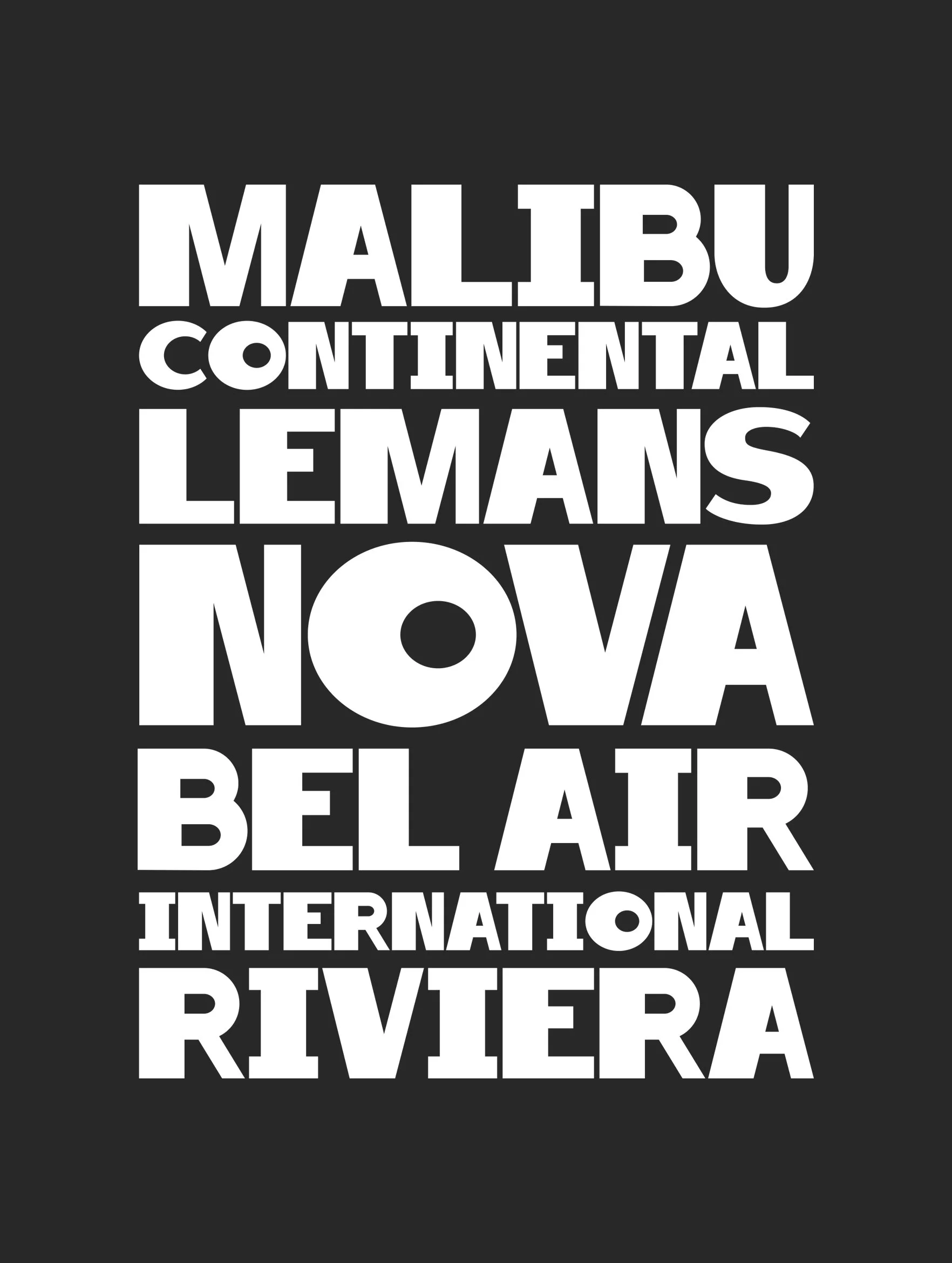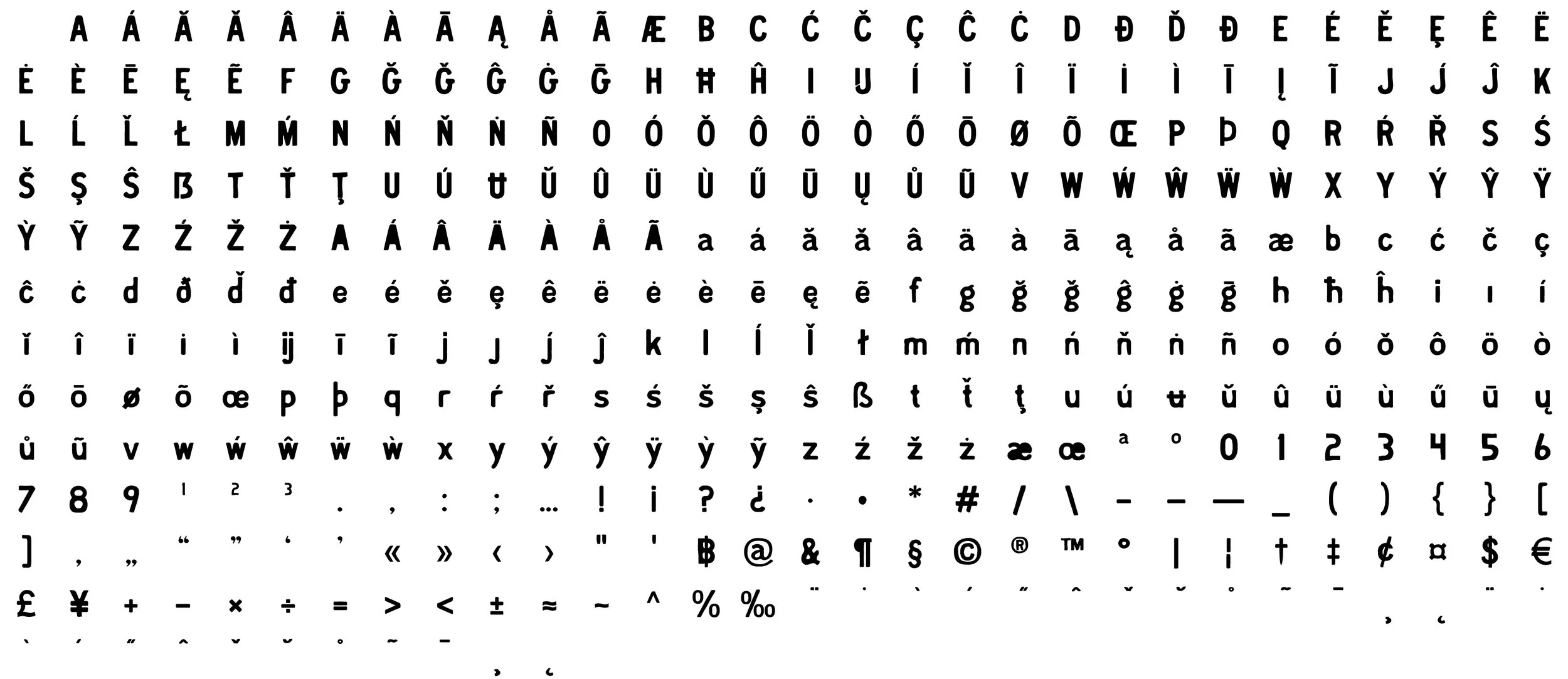
LT Super Nova
Like a vintage muscle care revving it’s engine in the typography world this retro display fontface doesn't just nod to the 1960s automotive industry; it screams it from the rooftop of a neon-lit diner. Its characters are as unapologetically bold and loud as a ’69 Nova with straight pipes. This Lord Typo time machine of a fontface is transporting you straight to the era of chrome, tailfins, and cheap gas. So buckle up and start designing something boss.